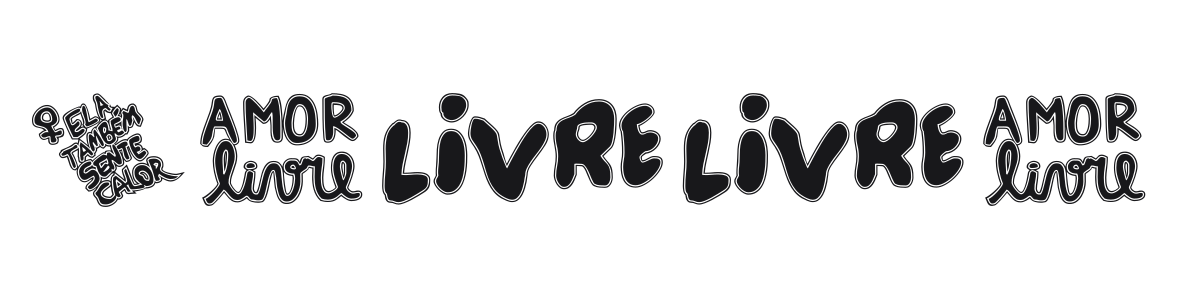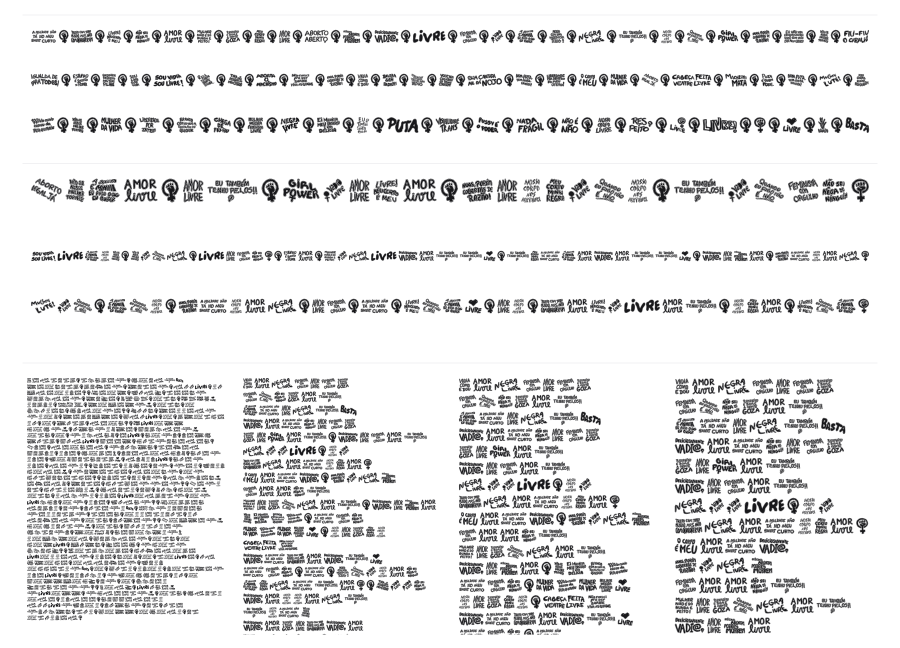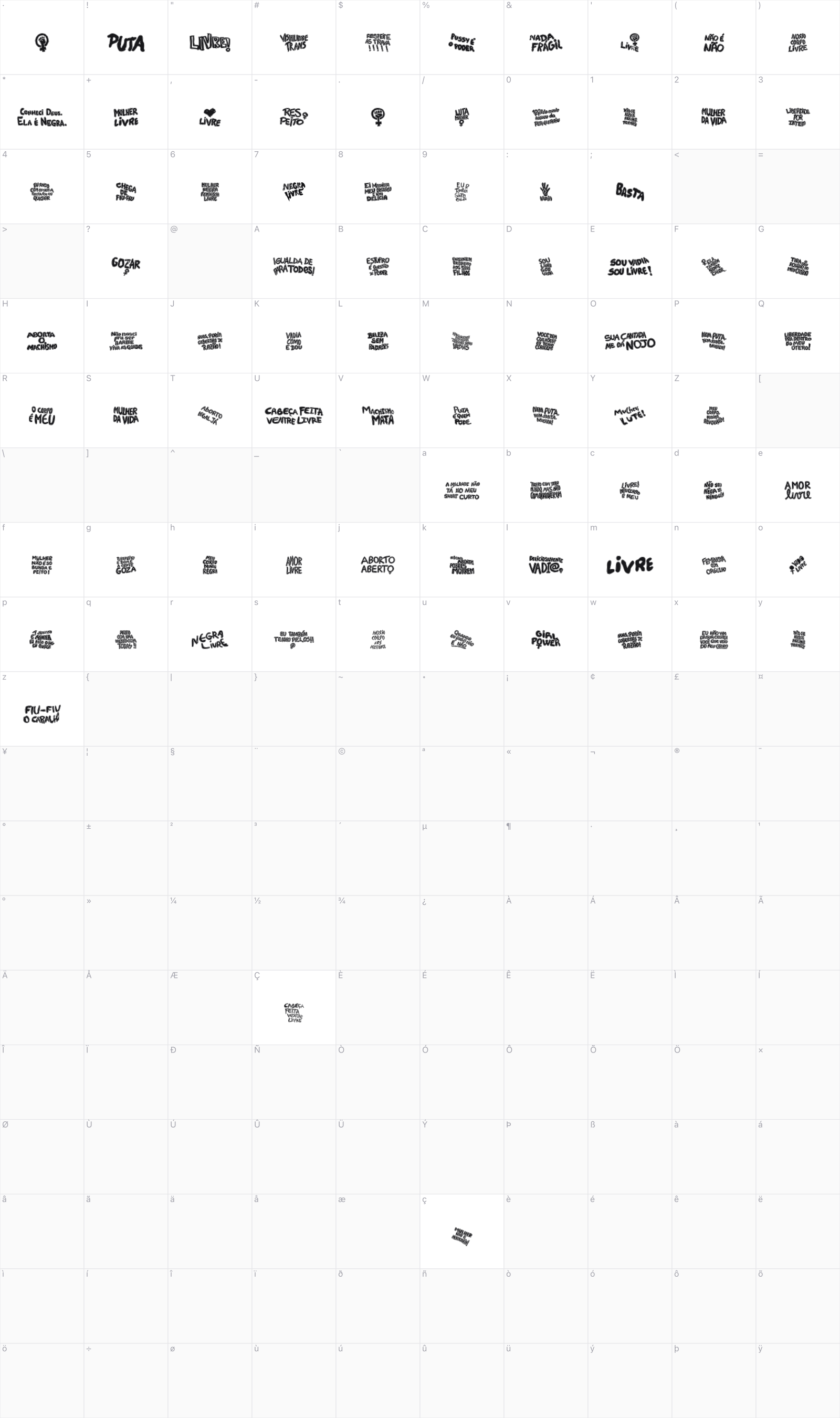
Femme
by Josinaldo Barbosa
Femme is a handwritten display font born from feminist protest posters and body-painting art, developed as a typography project at IFPE. Each word carries a different weight, scale, and rhythm, mirroring the unruly energy of real-world activism. It comes in four variants: regular, negative, shadow, and outline.